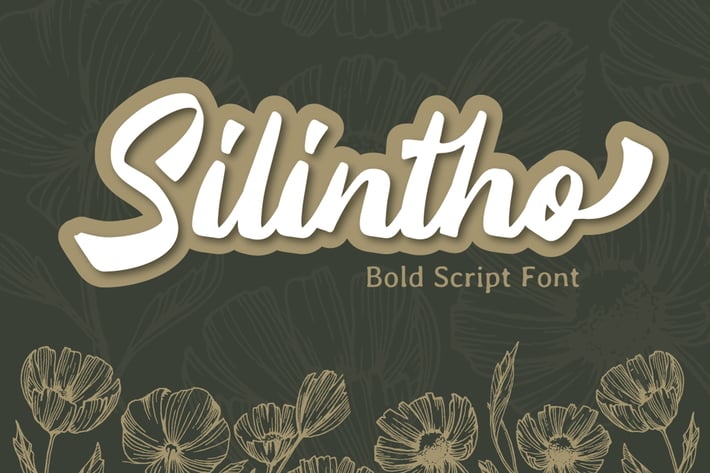
Silintho - Bold Script Font
Silintho is a Bold Script font with ending swash.
Perfect for any business logo, brand and use it to create spectacular designs!
Silintho is perfect for branding, logo, invitation, stationery, social media post, product packaging, merchandise,
blog design, game titles, cute style design, Book/Cover Title and more.
- Ending Swash